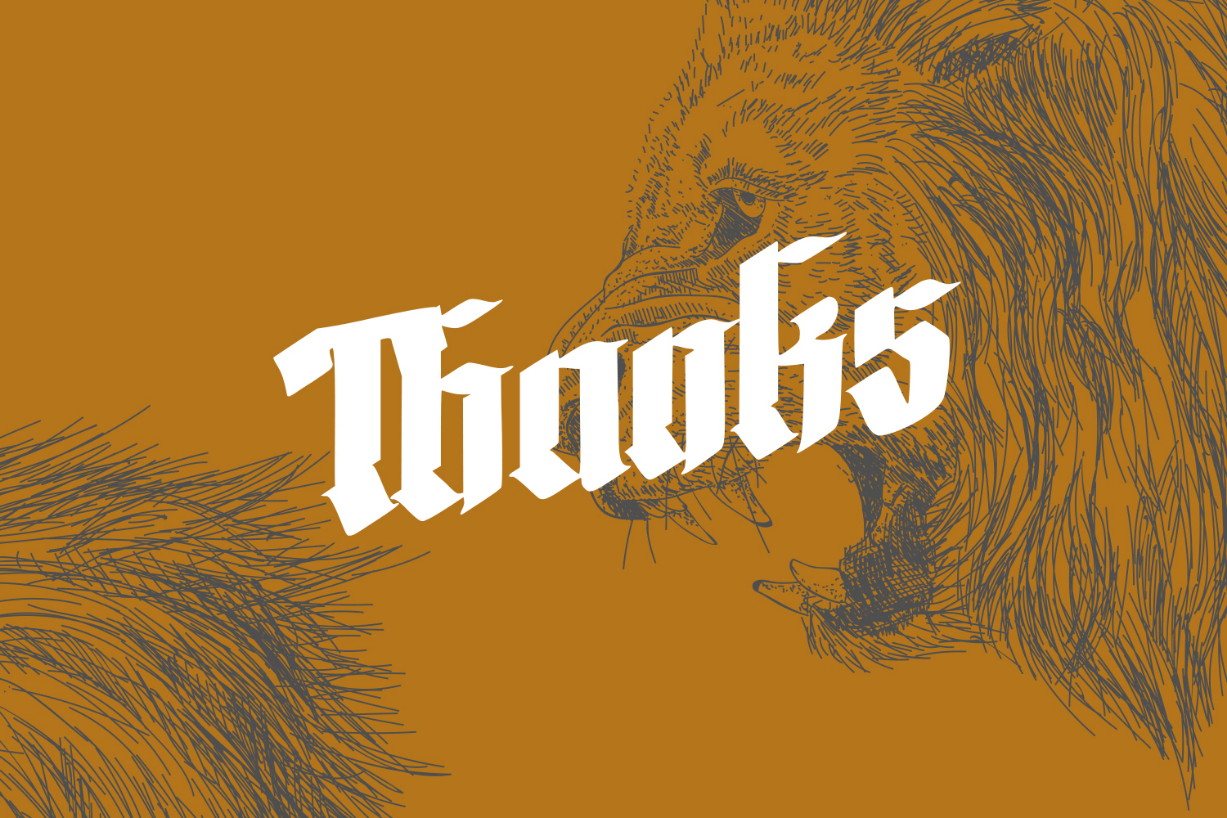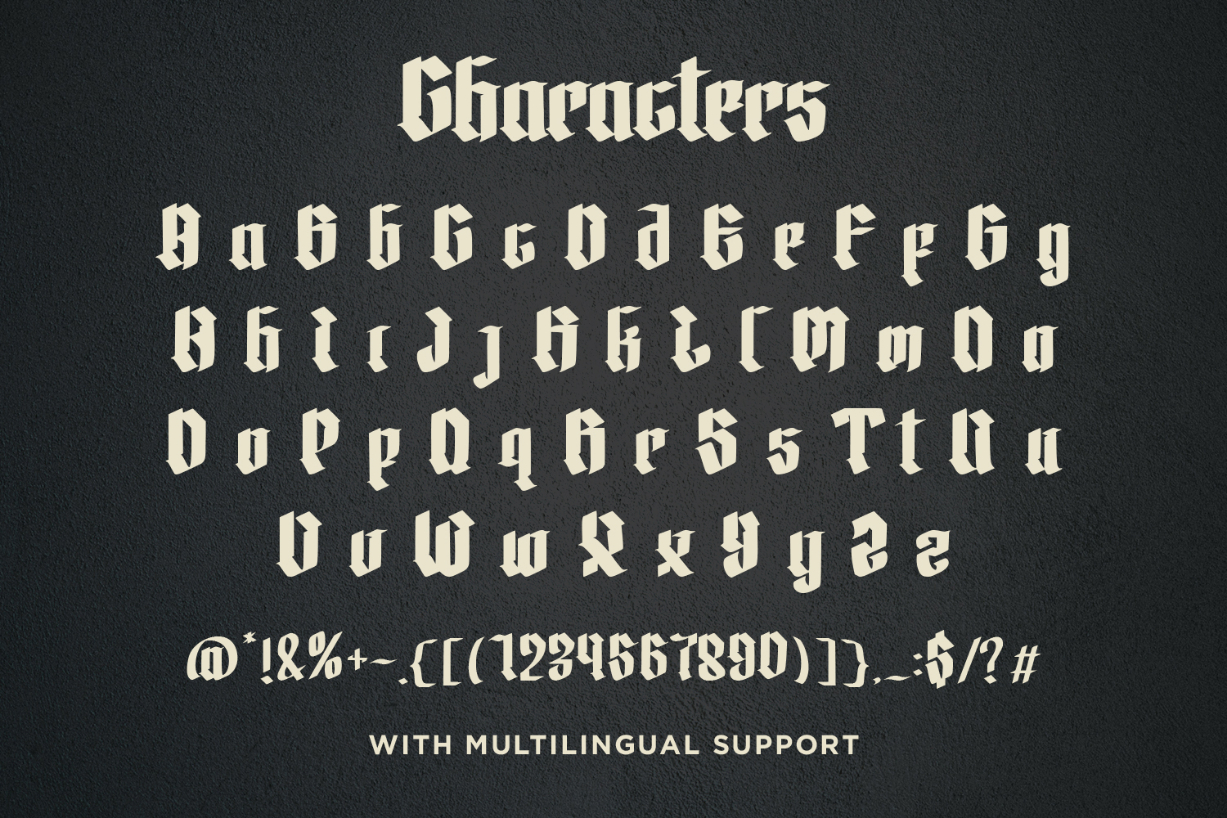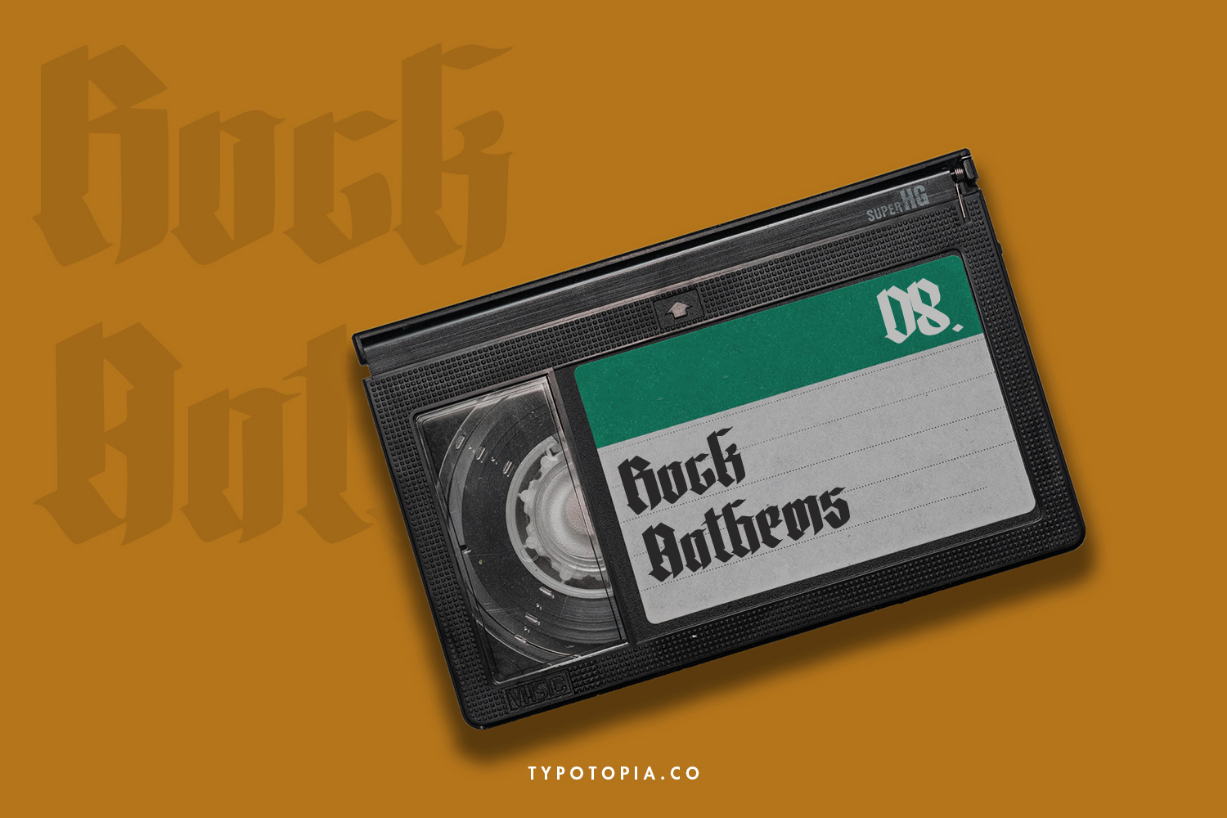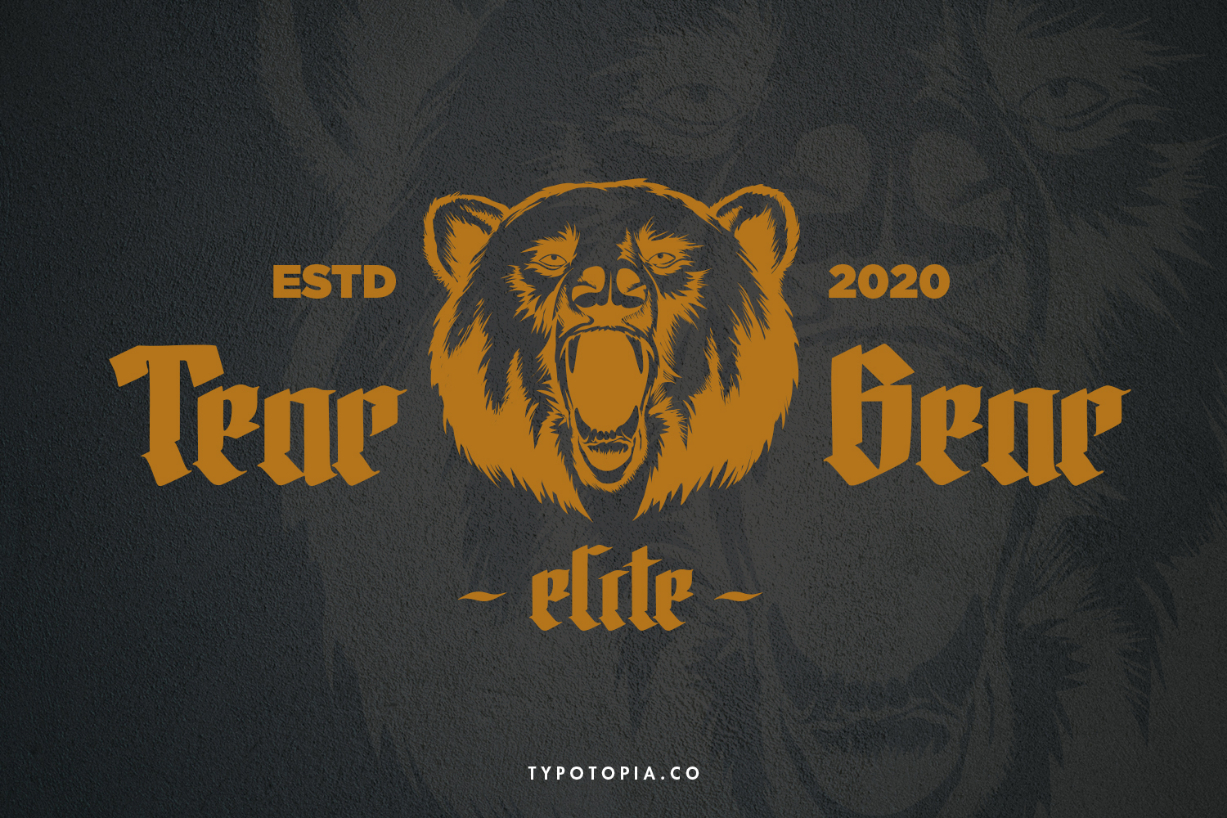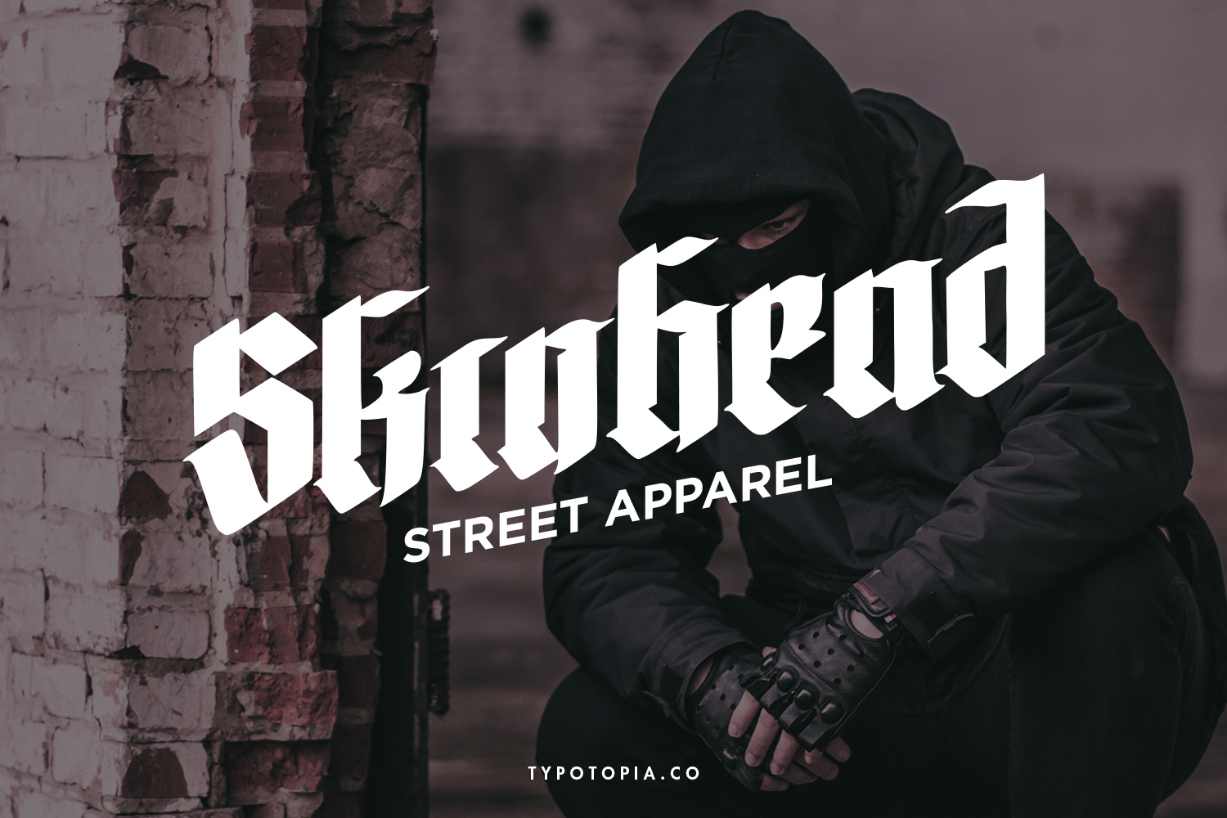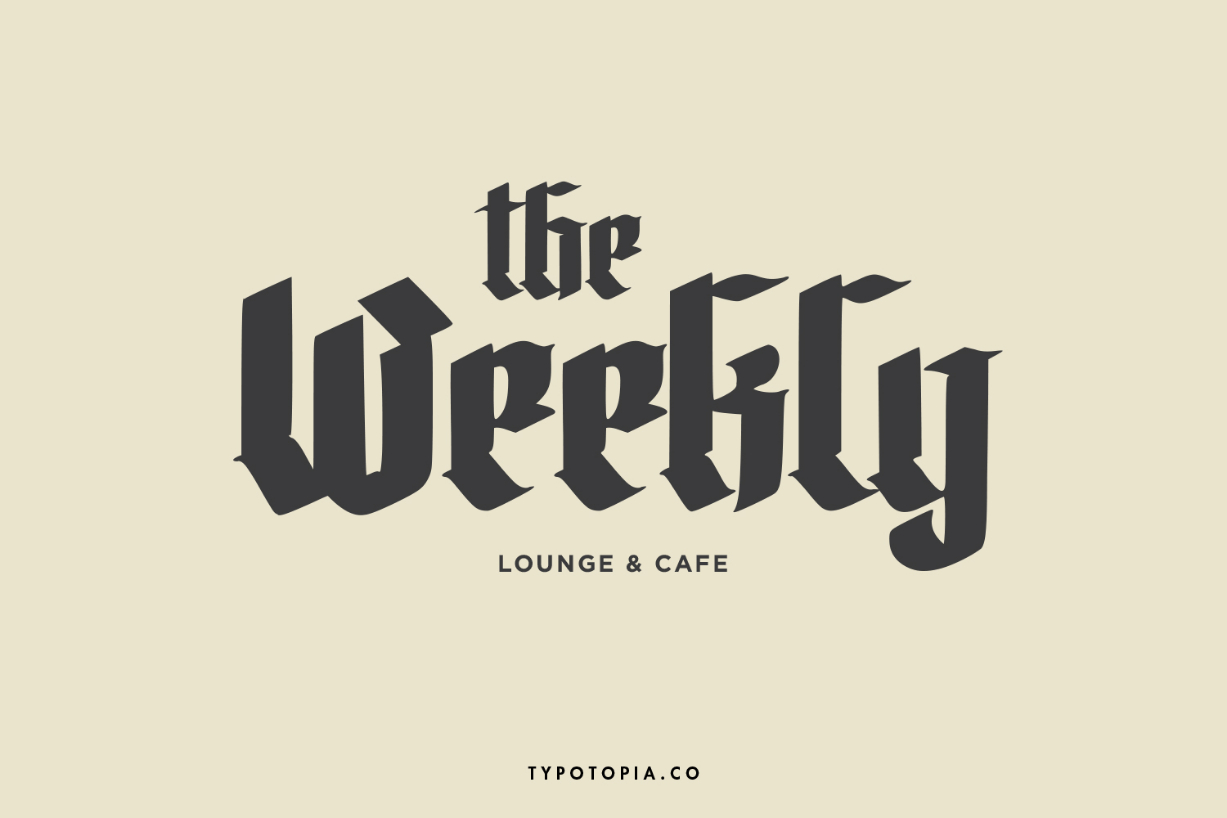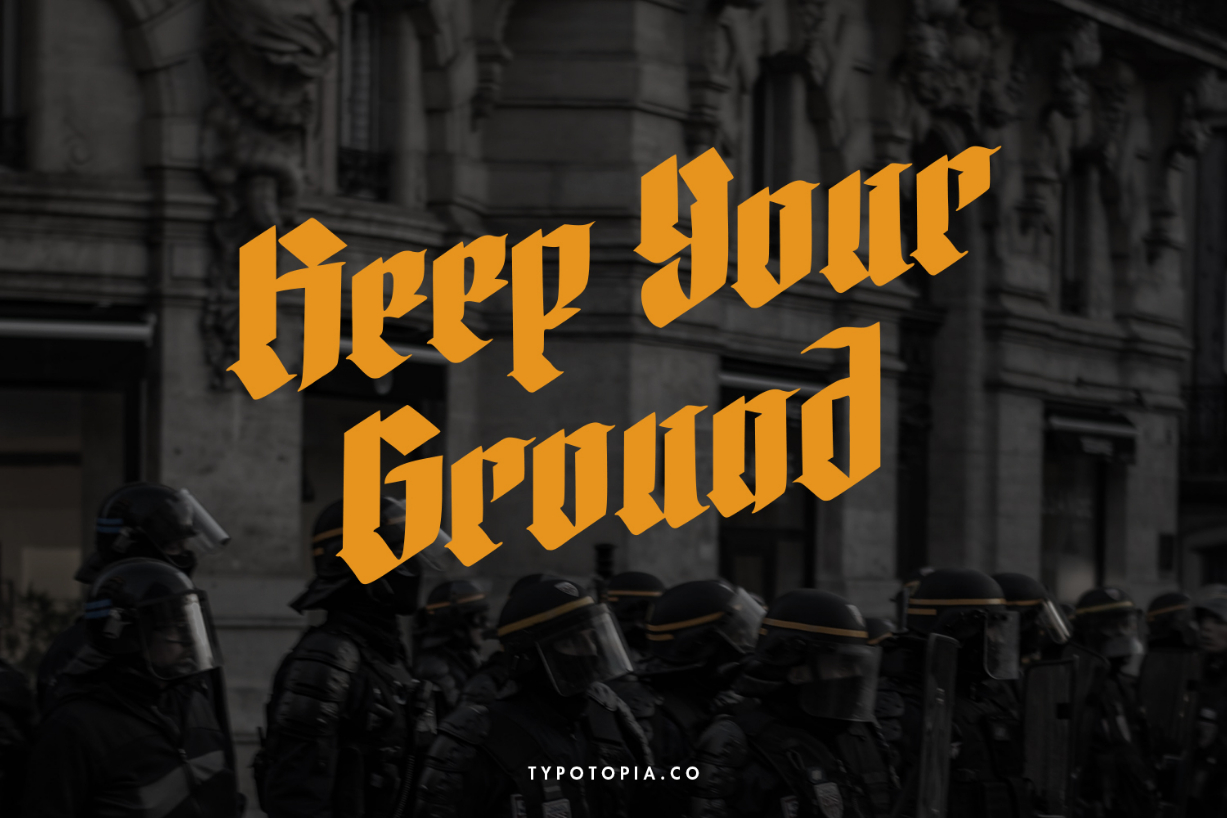
The Osgiliath Font
About The Osgiliath Font
The Osgiliath is a bold and authentic blackletter font. A bit dramatic, this font will make each of your creations stand out.